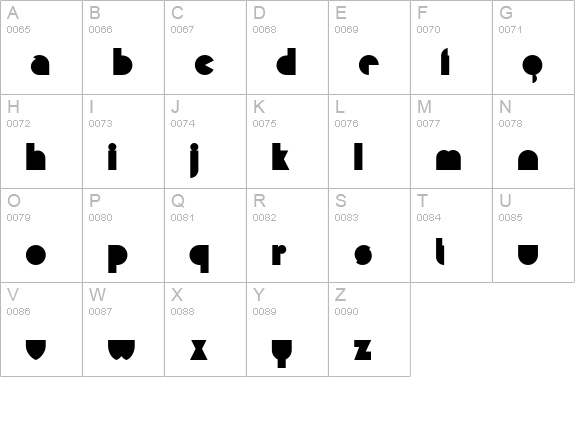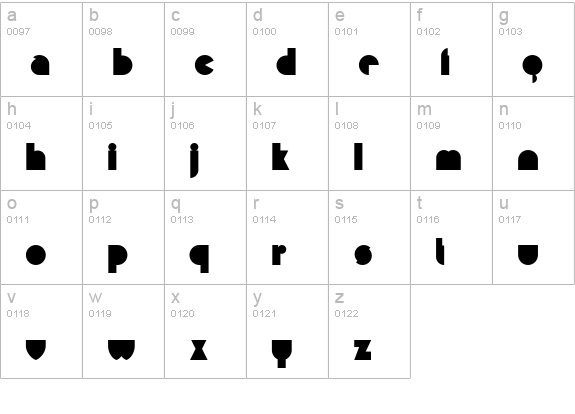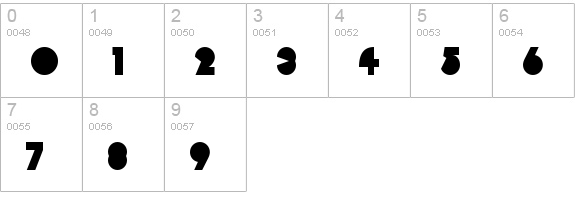
Misirlou Font Details
Misirlou font is a stunning and versatile typeface that exudes elegance and sophistication. Its intricate details and captivating design make it perfect for a wide range of creative projects, from branding and packaging to invitations and social media graphics. The font features a unique blend of classic and modern elements, giving it a timeless appeal that will elevate any design it is used in. One of the best things about Misirlou font is that it is available for free download at FontsMarket.com. This means that you can easily access this beautiful font and incorporate it into your projects without any cost. Whether you are a professional designer looking for a new addition to your font collection or a hobbyist looking to add some flair to your personal projects, Misirlou font is a fantastic choice that won't break the bank. With its eye-catching style and easy accessibility, Misirlou font is sure to become a go-to option for designers of all levels. Download it today and unleash your creativity with this stunning typeface!